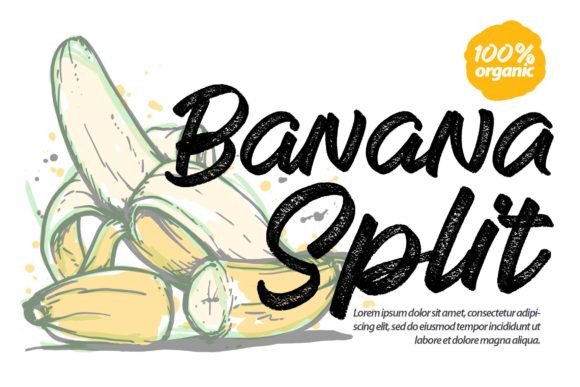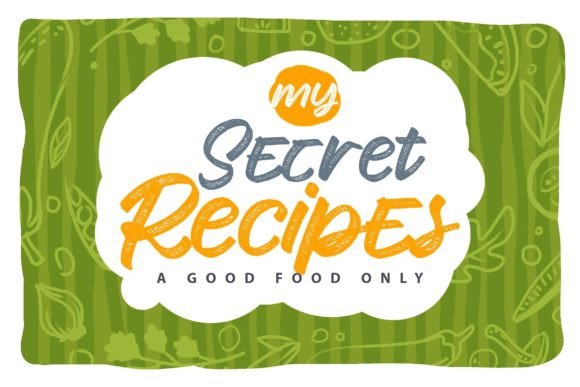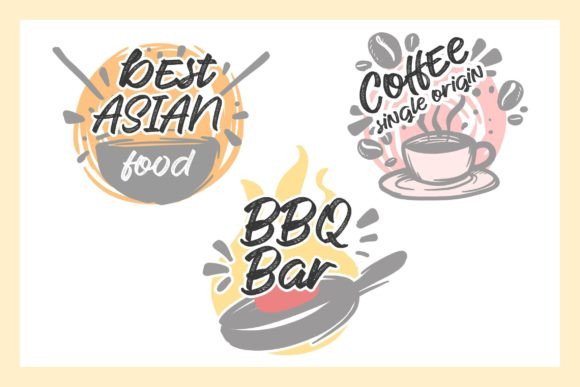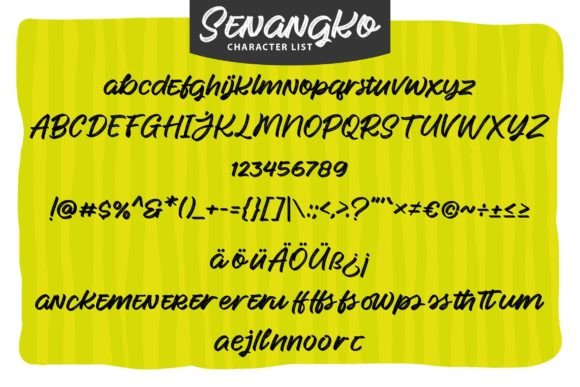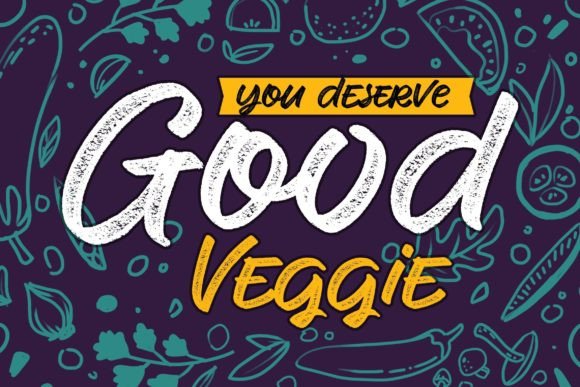
Introduction to Senangko Font
As a designer, there’s nothing quite like the thrill of bringing a creative project to life. You’re sitting at your desk, surrounded by scraps of paper, half-empty cups of coffee, and a sea of screens displaying your latest ideas. And then, it happens – the ‘aha’ moment when everything clicks into place. Your vision begins to take shape, and you can almost see the final product in your mind’s eye. For designers like you, having the right tools is crucial to making that vision a reality.
That’s where the Senangko Font comes in – a stunning, handcrafted font designed to elevate your branding and leave a lasting impression. With its elegant style and PUA encoding, this font is a game-changer for any creative project. Whether you’re working on a high-quality design or simply want to add a touch of sophistication to your next project, the Senangko Font is sure to deliver.
Key Features of Senangko Font
- Unique, modern design ideal for creative projects requiring a touch of elegance and sophistication.
- High-quality design resource suitable for print and digital applications, including business cards, brochures, and website headers.
- Designed to be highly versatile, making it suitable for a wide range of creative projects, from branding to editorial content.
Honest Review: Senangko Font
As a designer, I’m always on the lookout for high-quality design resources to elevate my creative projects. The Senangko Font caught my attention, and I was eager to give it a try. In this review, I’ll share my honest thoughts on this font.
What works well: ✨ The Senangko Font has a unique and stylish aesthetic that can add a touch of sophistication to any design project. It’s perfect for creative projects that require a bold and eye-catching font. The font also comes with a transparent background, making it easy to customize and layer with other design elements.
- High quality: The font is well-designed and has a high level of quality, making it suitable for professional projects.
- Design resource: The Senangko Font can be used as a design resource for various creative projects, from logos to branding materials.
Limitations: ⚠️ While the Senangko Font is a great resource, it may not be suitable for all design projects. The font’s unique style may not be the best fit for projects that require a more conservative or traditional approach.
Overall impression: The Senangko Font is a great addition to any designer’s toolkit. Its unique style and high-quality design make it an excellent choice for creative projects that require a bold and eye-catching font. With its transparent background and free download option, it’s an excellent resource for designers on a budget.
Senangko Font is a high-quality design resource ideal for creative projects. Its transparent background makes it easy to use in various design software.
For the best results, use Senangko Font on a transparent background to maintain its high-quality design. Experiment with different font sizes and styles to enhance your creative project.
Common Use Cases for Senangko Font
Senangko Font is ideal for creative projects such as logos, brochures, and social media graphics. Its high-quality design and transparent background make it a valuable resource for designers.